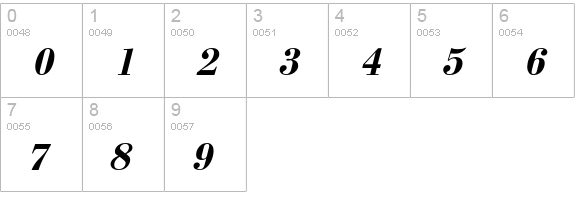
PT Bodoni BoldItalic Cyrillic Font Details
Introducing the exquisite and bold PT Bodoni BoldItalic Cyrillic font, a timeless masterpiece that effortlessly combines sophistication with modern elegance. With its striking slanted italics and graceful curves, this font exudes a sense of luxury and refinement, making it perfect for projects that demand a touch of class. The PT Bodoni BoldItalic Cyrillic font is not only visually captivating but also highly versatile, suitable for a wide range of design applications including editorial design, branding, packaging, and more. Its bold and dynamic presence on the page commands attention and adds a touch of drama to any design. What's more, this stunning font is available for free download at FontsMarket.com, making it accessible to all designers and creatives looking to elevate their projects with a touch of sophistication. Don't miss out on the opportunity to enhance your designs with the timeless beauty of PT Bodoni BoldItalic Cyrillic font. Download it today and unlock a world of creative possibilities.